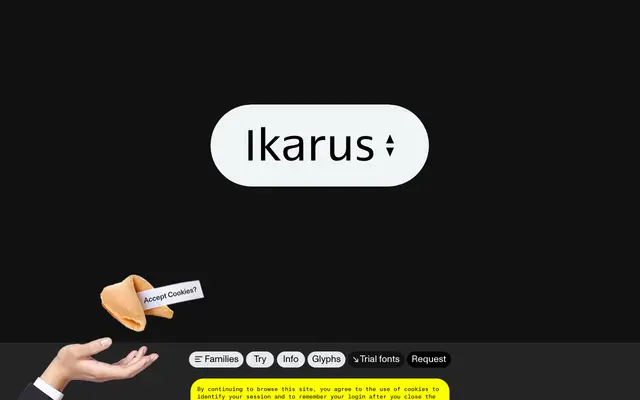
ABC Ikarus
A humanist wayfinding double-family with a monolinear text cut and high-contrast Flair and Contrast companions across three widths and eight weights.
A humanist double-family by Dinamo's Fabian Harb, Erkin Karamemet and Johannes Breyer, rooted in wayfinding. One side runs as a sturdy, monolinear text design, the other as an articulate, high-contrast Flair and Contrast companion for headlines. Open terminals and clearly distinctive letterforms are tuned for distance reading, challenging light and the smallest sizes. Three widths (Condensed, Normal, Extended) carry eight weights per subfamily with matching italics, and a variable font axis ties everything together for seamless movement between extremes.
Dinamo describes Ikarus as a humanist double-family rooted in wayfinding, with a sturdy monolinear text design alongside an articulate, high-contrast Flair and Contrast companion for headlines and display, optimised for distance reading and small sizes.